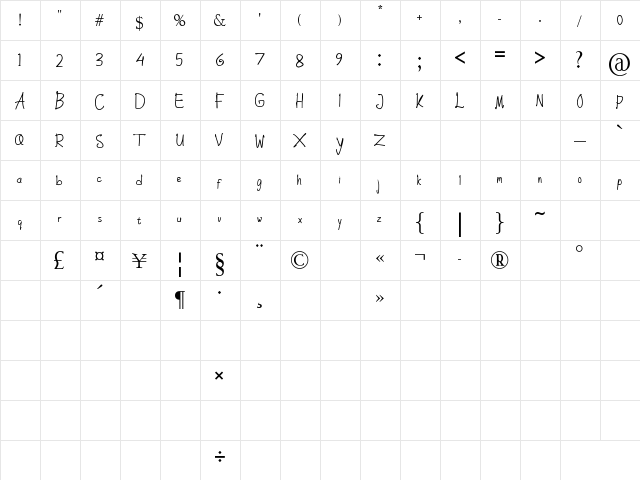
Dream One Regular
| Designer | Gigih Wiryana |
Design Context for Dream One Typeface
Dream One is a composed and adaptable typeface that performs quietly and consistently across a wide range of design contexts.